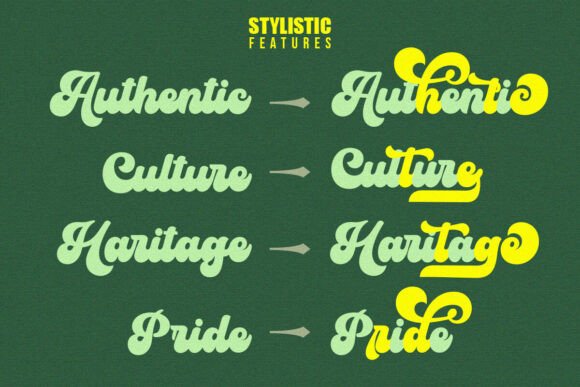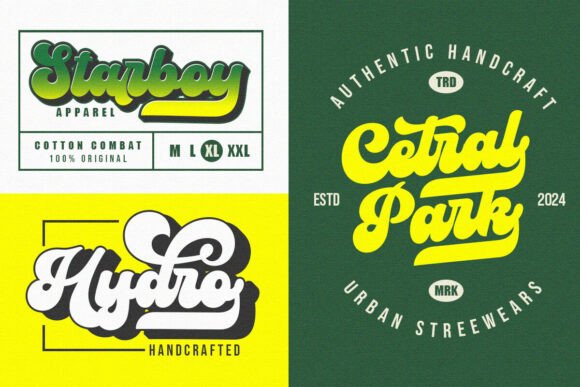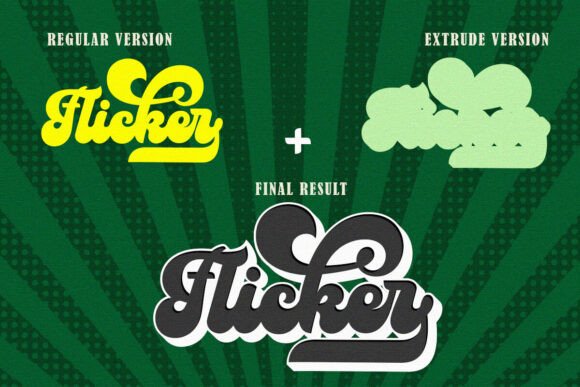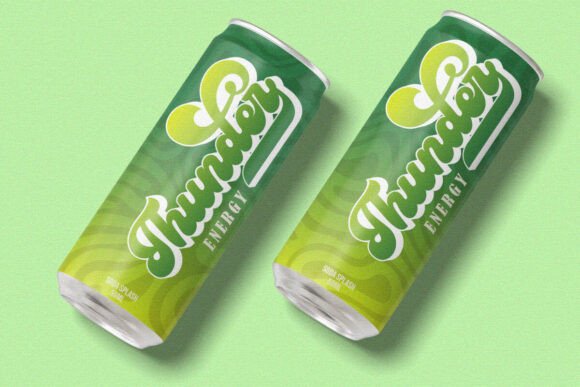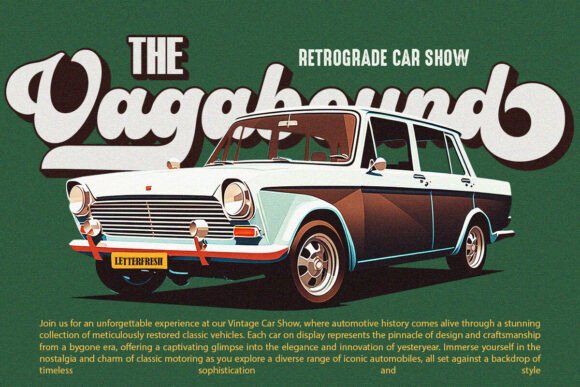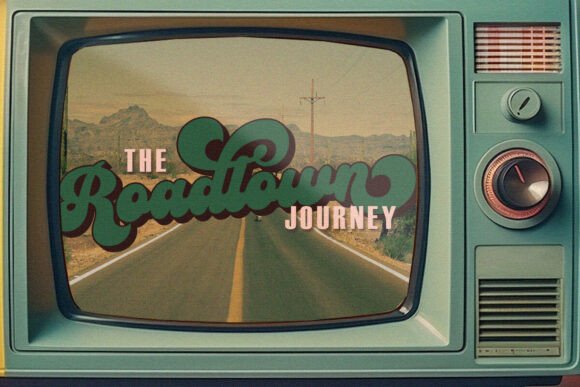
Introduction to Mafhea Font
Have you ever stumbled upon an old vinyl record or a vintage photograph and felt an instant rush of creative inspiration? For designers, this feeling is a constant companion, and it’s exactly what led us to discover the Mafhea Font. This stunning Vintage retro font is a masterful blend of 70s and 80s typography, infused with a bold and eye-catching style that’s sure to elevate any creative project.
With its high quality design and versatility, the Mafhea Font has become a go-to resource for designers seeking to add a touch of nostalgia and sophistication to their work. Whether you’re working on a branding project, creating a poster, or designing a book cover, this font is the perfect companion. And the best part? It’s available for a free download, making it an accessible design resource for creatives of all levels.
From its transparent background to its bold, retro-inspired letters, the Mafhea Font is a valuable addition to any designer’s toolkit. In this article, we’ll take a closer look at the Mafhea Font and explore its many uses, so you can unlock its full potential and take your designs to the next level.
Key Features of Mafhea Font
- High-quality, unique design for creative projects: Mafhea Font offers a distinctive style that sets your work apart from the crowd.
- Transparent background: Perfect for graphic designers, illustrators, and digital artists who need a clean and seamless design element.
- Large character set: Includes a comprehensive set of characters, including uppercase and lowercase letters, numbers, and punctuation marks.
- Perfect for design resources: Use Mafhea Font as a versatile design element for logos, branding materials, and other creative projects.
Honest Review: Mafhea Font
I recently had the chance to work with the Mafhea Font, and I must say it’s been a game-changer for my creative projects. The high quality of the font is immediately apparent, making it a great addition to any design resource.
- What works well: ✨ The Mafhea Font is incredibly versatile and can be used for a wide range of projects, from logos to headings. The transparent background makes it easy to work with and allows for seamless integration into any design.
That being said, there are a few limitations to be aware of. ⚠️ The font may not be suitable for all types of projects, particularly those that require a more traditional or formal look. Additionally, the font’s bold style may be overwhelming in some contexts.
Overall, I’m thoroughly impressed with the Mafhea Font. Its unique style and high quality make it a valuable addition to any designer’s toolkit. If you’re looking for a creative font to spice up your projects, I highly recommend giving Mafhea a try.
Mafhea Font is a high-quality, creative project font that can be used for various purposes. It is available for free download and comes with a transparent background, making it a versatile design resource.
To get the most out of Mafhea Font, use it for creative projects such as infographics, social media graphics, and presentations. Experiment with different font sizes and styles to add visual interest.
Mafhea Font is commonly used for creative projects such as branding, marketing materials, and educational resources. Its high-quality design and transparent background make it a popular design resource among creatives.